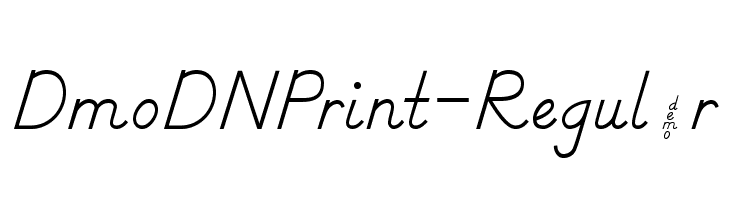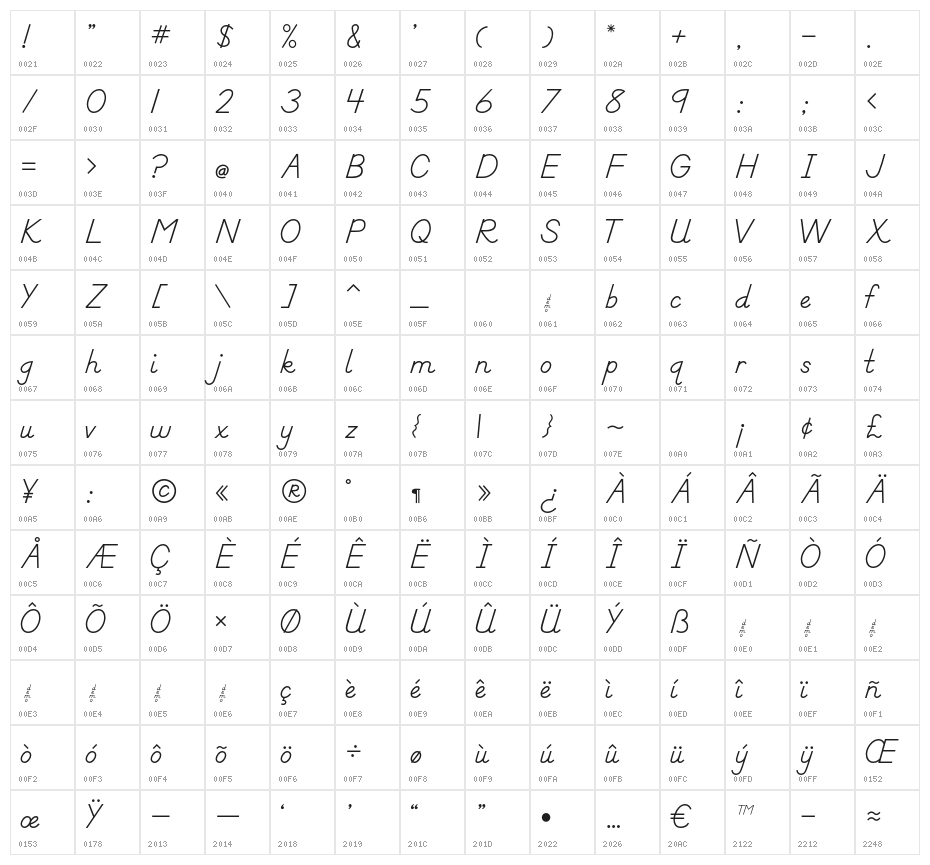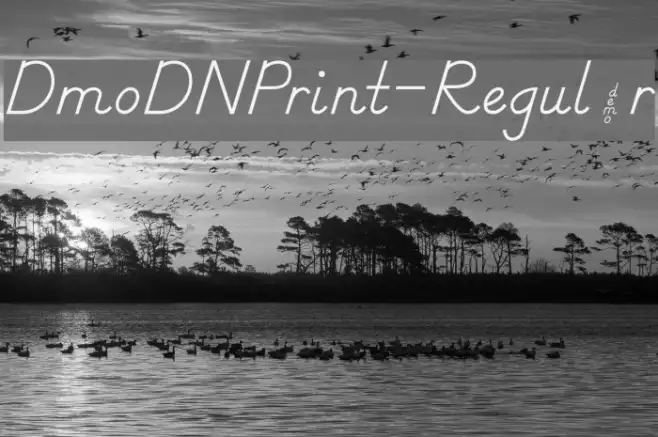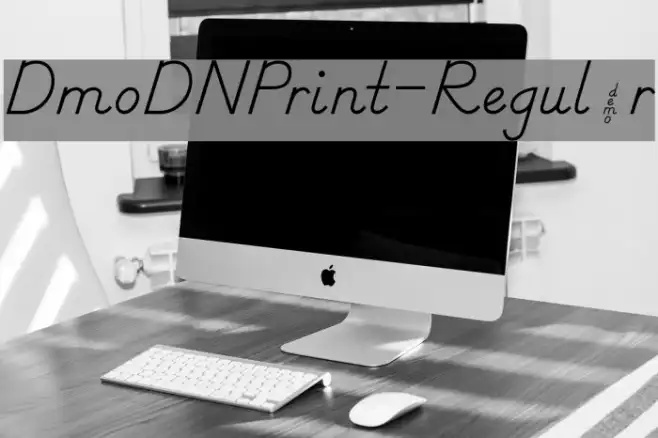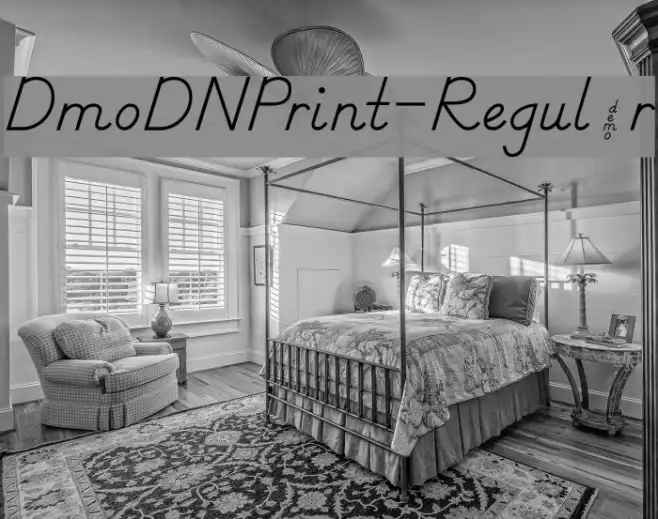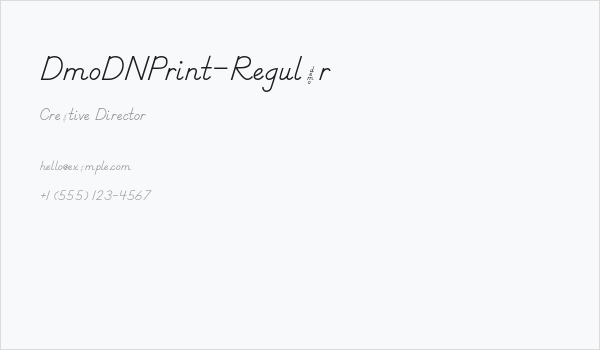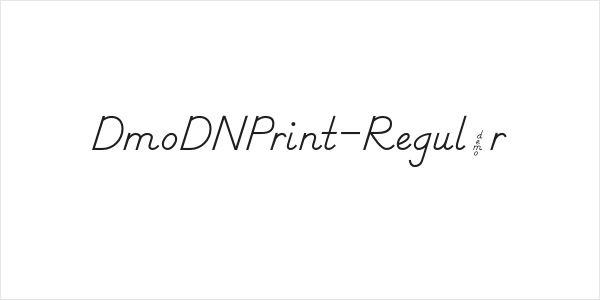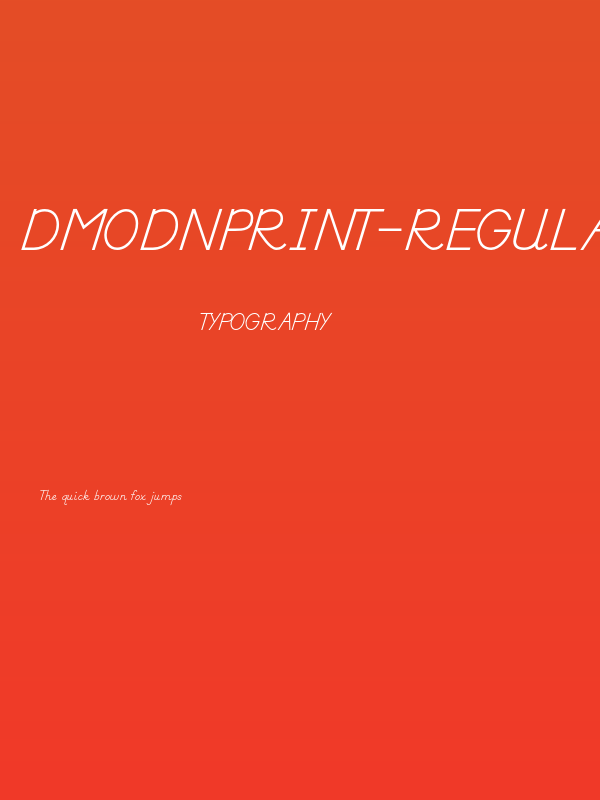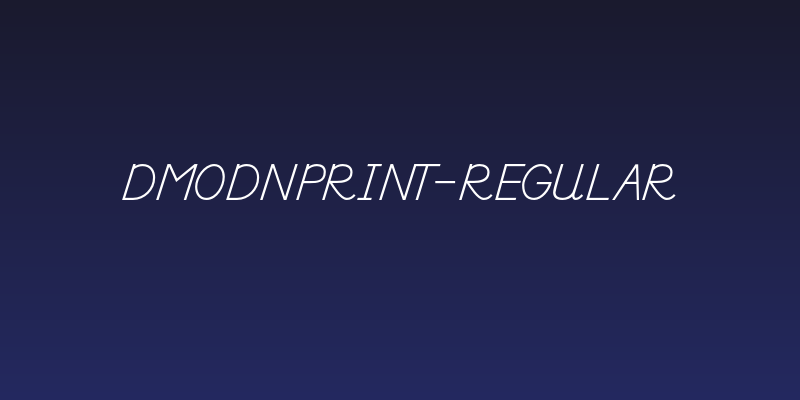
DmoDNPrint-Regular Font
DmoDNPrint-Regular Description
This font features a clean and elegant script style with a slight slant, giving it a handwritten appearance. The uppercase letters are tall and narrow, while the lowercase letters are more rounded and flowing. The numerals are consistent with the overall style, maintaining a balance between readability and aesthetic appeal. Special characters are well-integrated, complementing the font's cohesive look. The strokes are smooth and uniform, with a medium contrast that enhances legibility without sacrificing style.
| Use Case | Invitations, Personal branding |
| Proposed Projects | Ideal for wedding invitations, greeting cards, personal branding, and elegant signage. |